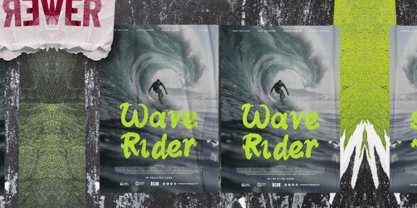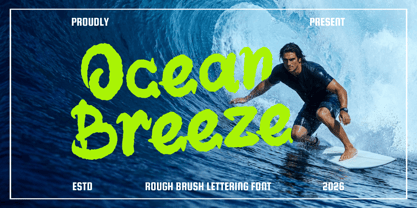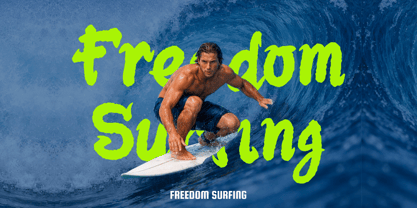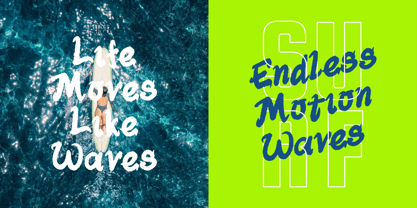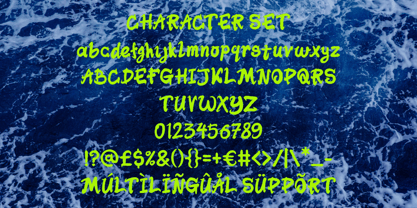
Ocean Brezze
by Shanaf
The Ocean Brezze Font Family was designed by Yesie Erma Yunita and published by Shanaf. Ocean Brezze contains 1 styles. More about this family
Ocean Brezze Rough Brush Lettering Font brings raw coastal energy into every layout. The strokes look hand painted with thick pressure changes, rough edges, and natural brush breaks. Rounded curves mix with sharp flicks, creating movement like flowing water and fast motion. The baseline feels loose and lively, giving words a spontaneous handmade rhythm. Letterforms stay bold enough for clear reading in large sizes. This font carries an adventurous, sporty, and carefree mood with a modern street touch. Ocean Brezze Rough Brush Lettering Font fits surf shops, beach cafés, travel brands, outdoor campaigns, and youth products that need fresh character and action driven style. Use this font for logos, branding, posters, headlines, packaging, stickers, banners, magazine covers, and social media titles. It works well for surfing events, ocean festivals, summer promotions, skate brands, swim businesses, and sport communities. The textured brush style adds motion to movie titles, quote graphics, book covers, and adventure campaigns. Strong uppercase forms command attention, while lowercase letters feel relaxed and friendly. It also suits craft labels, beverage branding, resort promotions, and tourism visuals. Each word feels energetic, free, and expressive. Choose it when your project needs bold impact, coastal spirit, and hand painted personality.
Designers: Yesie Erma Yunita
Foundry: Shanaf